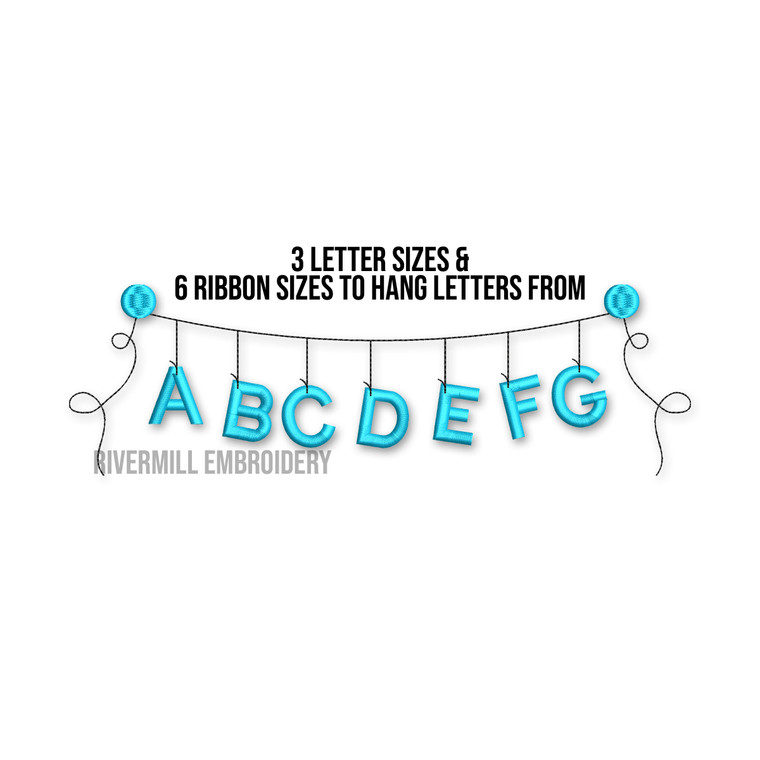
Hanging Letters Machine Embroidery Font Alphabet
This set comes with upper case letters, numbers 0-9, the & symbol and 6 sizes of the ribbon to hang your letters from.
The letter sizes included are 1", 1 1/2", 2" - the string is included in the height.
The frame sizes are 4", 5", 6", 7", 8", and 9" wide.
You will need to be able to slightly rotate and move individual letters to fit them to the ribbon depending on the word you create.